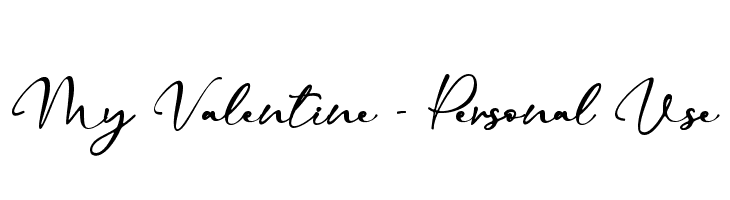
A romantic and elegant cursive script font with flowing connections.
A flowing, handwritten script font with elegant curves and a playful, sophisticated style.